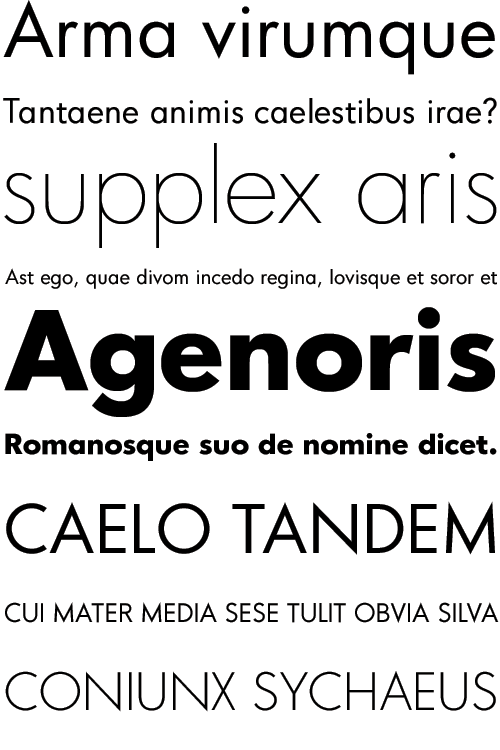
EEL Futura
MADType was contracted by Joyce Meyer Ministries to modify Futura to be used in their publication Enjoying Everyday Life.
Among the changes were adding an UltraLight weight and toning down some of Futura's more awkward features.
Year Designed:
2006
Weights:
UltraLight, Light, Regular, Bold